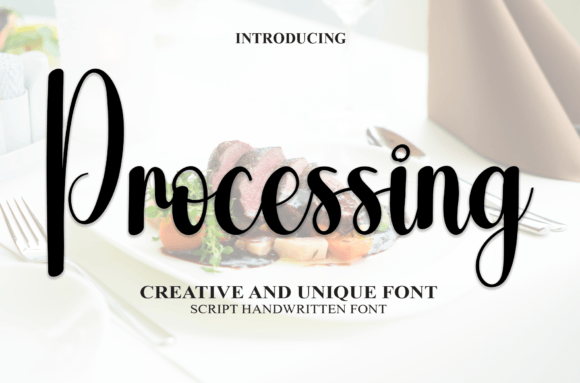
Welcome to the world of handwritten elegance, where Processing Font gracefully dances across your designs, captivating hearts with its sweet and friendly demeanor. Step into a creative realm where charm meets sophistication, and each letter dances with a unique personality.
Processing Font, a masterpiece from the creative mind of William Jhordy, is a script font that breathes life into your digital creations. Crafted with the utmost care, each stroke tells a story, evoking emotions and adding a personal touch to your projects. Whether you're a seasoned designer or just starting your creative journey, Processing Font is your perfect companion.
Indulge in the joy of crafting stunning wedding invitations, where the flowing characters of Processing Font intertwine with elegance. Enchant your greeting cards with heartfelt messages, written in a script that exudes warmth and sincerity. Let your imagination run wild as you design social media posts that pop with personality, thanks to Processing Font's captivating charm.
But Processing Font's versatility extends far beyond the realm of personal expression. Dive into the world of branding and logo design, where Processing Font transforms your creations into unforgettable visual identities. Capture the essence of your brand with a logo that speaks volumes, leaving a lasting impression on your audience. Unleash your creativity in marketing materials, brochures, and flyers, using Processing Font to communicate your message with flair and impact.
As you explore the possibilities of Processing Font, you'll discover a font that goes beyond mere aesthetics. It's a tool that evokes emotions, captivates attention, and leaves a lasting impression. Join the creative revolution and let Processing Font be your muse, turning your digital dreams into captivating realities.